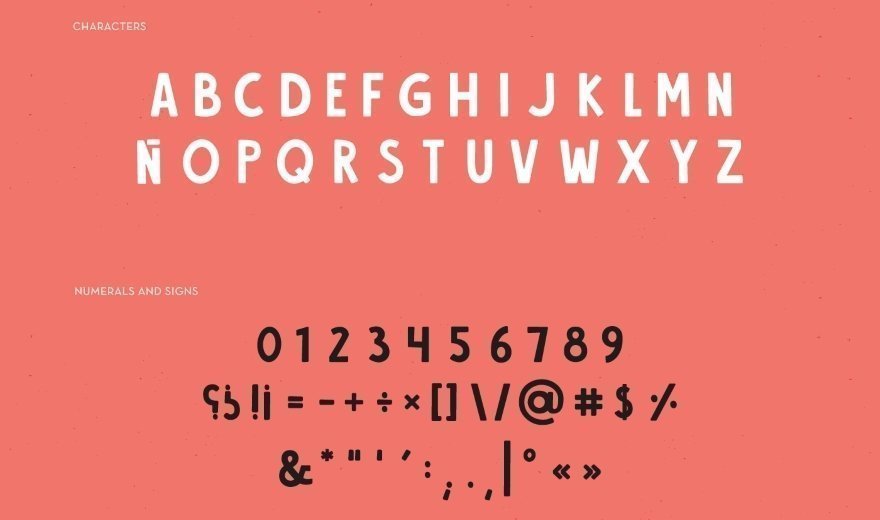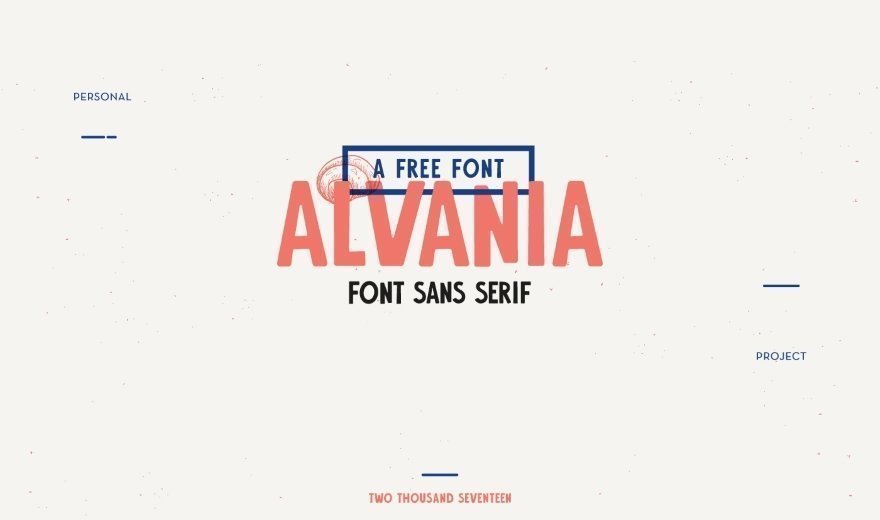
Download Alvania - a free simple friendly uppercase typeface. This free font includes only Latin characters, numerals, glyphs, and signs. Free font Alvania suits perfectly to design posters, packages, branding projects and more.